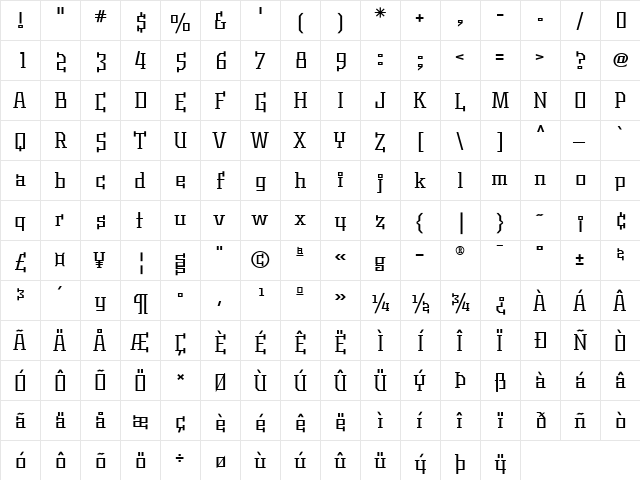
CentricSerifSG Regular
| Foundry | Spiece Graphics |
Design Context for CentricSerifSG Typeface
CentricSerifSG brings classic typographic sensibility to the table — its serifs and measured letterforms reflect centuries of print heritage.